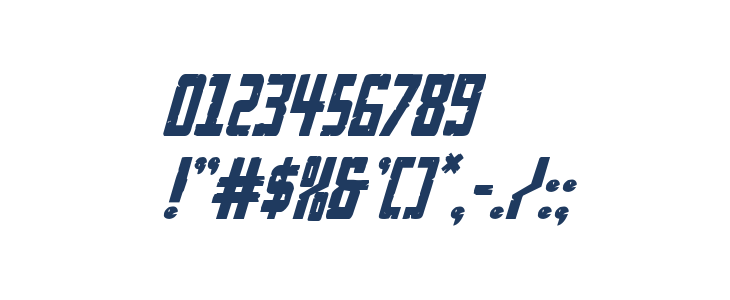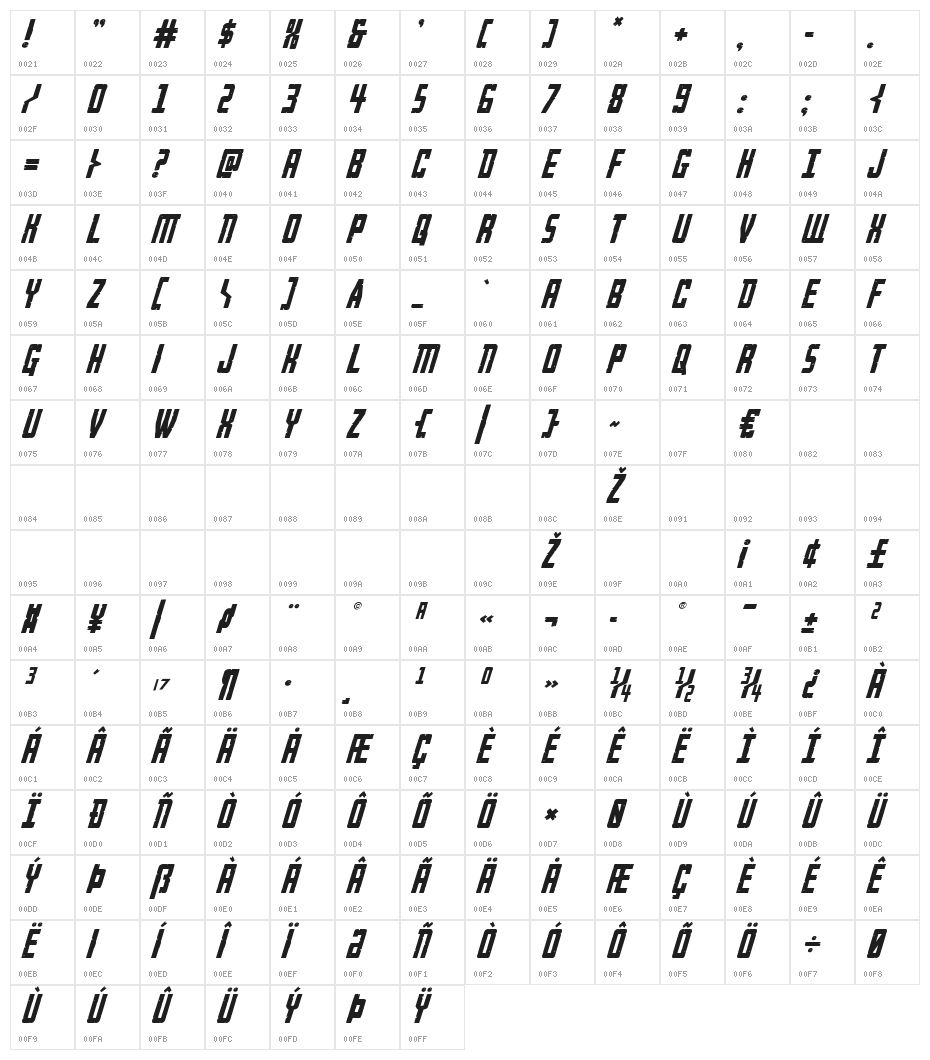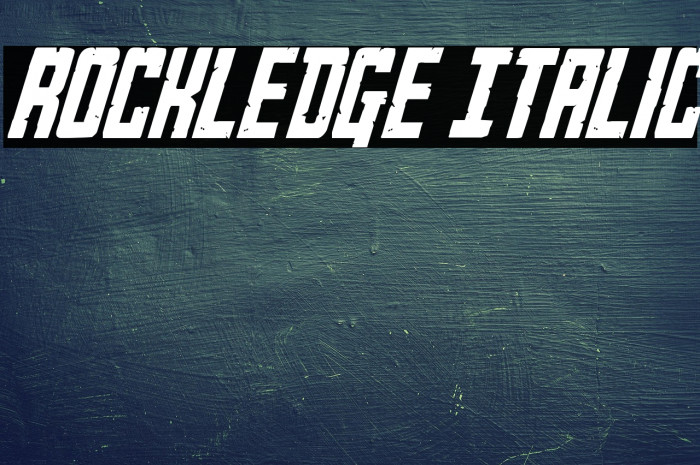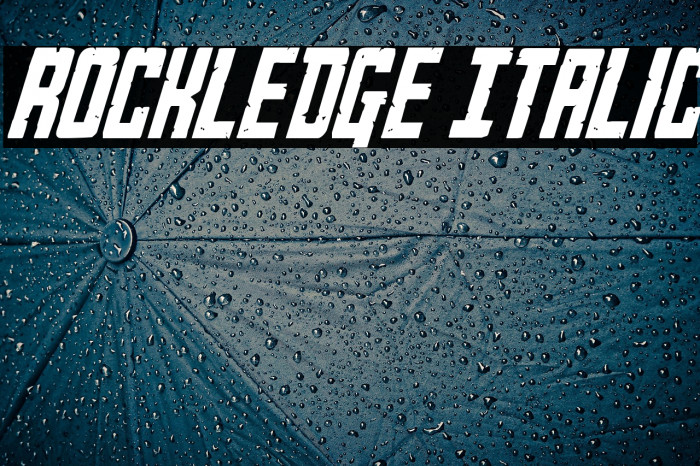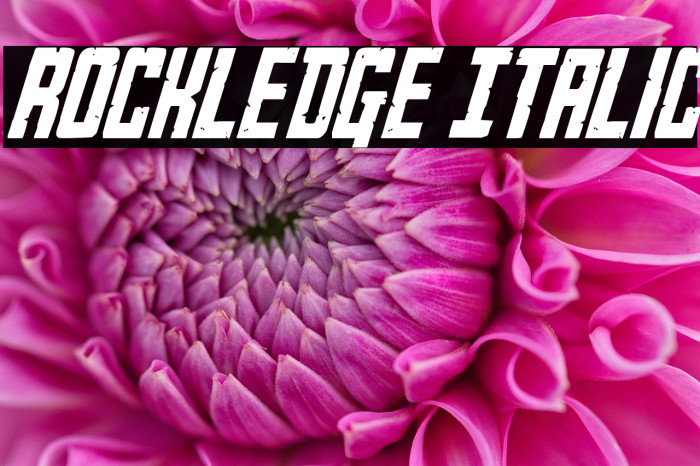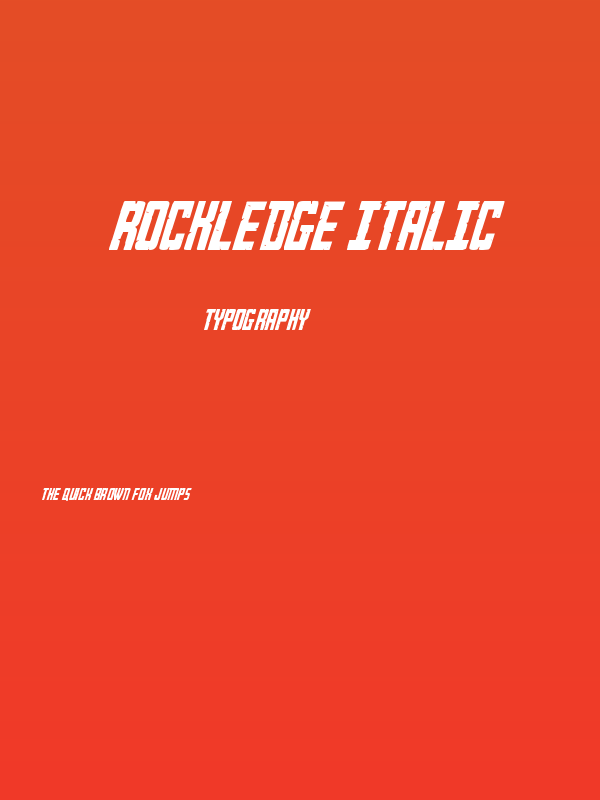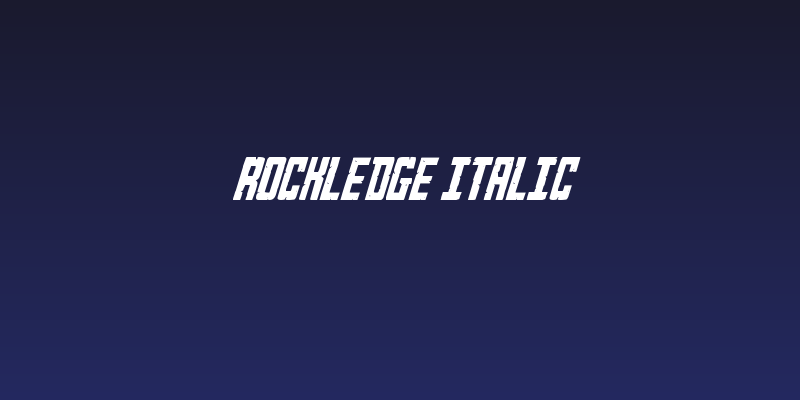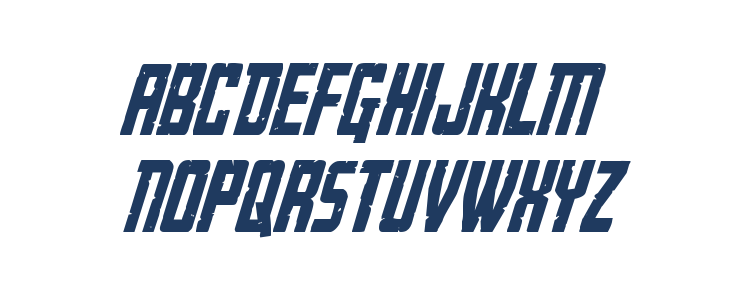
Rockledge Italic Font
Rockledge Italic Description
This font features a bold and dynamic style with a strong italic slant, giving it a sense of movement and energy. The characters are designed with a blocky, geometric structure, which adds a modern and industrial feel. The strokes are thick and consistent, providing a robust and impactful appearance. The uppercase and lowercase letters maintain a cohesive look, while the numerals and special characters complement the overall design. The font's unique style makes it suitable for projects that require a bold statement.
| Proposed Projects | Ideal for sports branding, action-themed posters, dynamic logos, and eye-catching headlines. |